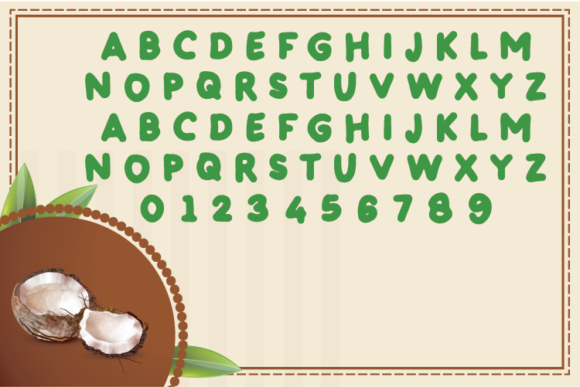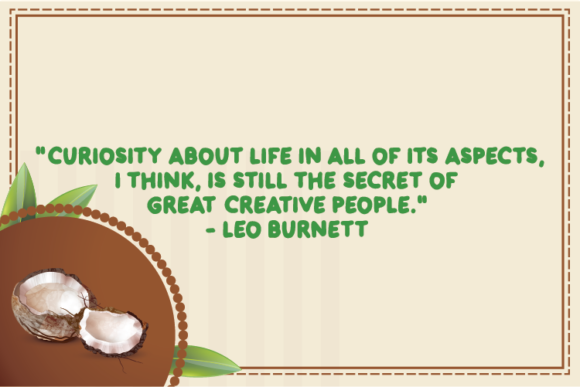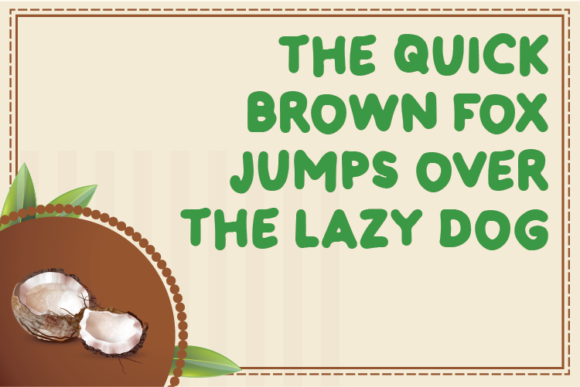
Coconute Font: The Friendly and Playful Display Font for All Occasions
Are you tired of using the same old fonts for your designs and crafts? Look no further than Coconute Font, a childish and easy-to-read display font that’s perfect for conveying friendliness and approachability. In this article, we’ll explore the features and benefits of Coconute Font, and why it’s about to become your new go-to font for all your design needs.
What is Coconute Font?
Coconute Font is a display font designed to be highly legible and friendly. Its playful and childish style makes it perfect for a wide range of applications, from crafts and digital design to presentations and greeting cards. The font’s unique charm and character are sure to capture the attention of your audience and leave a lasting impression.
Key Features of Coconute Font
- Childish and playful style: Coconute Font has a fun and youthful vibe that’s perfect for designs that need to appeal to a younger audience.
- Easily readable: The font’s clear and simple design makes it easy to read, even at small sizes.
- Versatile: Coconute Font can be used for a wide range of applications, from digital design to print materials.
- Friendly and approachable: The font’s warm and inviting style is perfect for conveying friendliness and approachability.
Why Use Coconute Font?
So why should you choose Coconute Font for your next design project? Here are just a few reasons:
- Add a personal touch: Coconute Font’s playful style adds a personal touch to your designs, making them more relatable and engaging.
- Stand out from the crowd: The font’s unique charm and character help your designs stand out from the crowd and grab attention.
- Perfect for kids and adults alike: Coconute Font’s friendly style appeals to both kids and adults, making it perfect for designs that need to appeal to a wide range of audiences.
Use Cases for Coconute Font
Coconute Font is perfect for a wide range of applications, including:
- Crafts: Use Coconute Font to add a personal touch to your handmade crafts, such as greeting cards, gift tags, and scrapbooking.
- Digital design: Coconute Font is perfect for digital designs, such as social media graphics, blog posts, and website headers.
- Presentations: Add a friendly and approachable tone to your presentations with Coconute Font.
- Greeting cards: Use Coconute Font to create fun and playful greeting cards for special occasions.
Tips for Using Coconute Font
Here are a few tips for getting the most out of Coconute Font:
- Experiment with colors: Coconute Font looks great in a wide range of colors, so don’t be afraid to experiment and find the perfect hue for your design.
- Pair with other fonts: Coconute Font pairs well with other fonts, so try combining it with a serif or sans-serif font for added visual interest.
- Use it sparingly: While Coconute Font is perfect for headings and titles, it can be overwhelming if used too much. Use it sparingly to add emphasis and create visual hierarchy.
Coconute Font is a friendly and playful display font that’s perfect for designers and crafters looking to add a personal touch to their work. With its childish and easy-to-read style, Coconute Font is sure to become your new go-to font for all your design needs. Whether you’re creating crafts, digital designs, presentations, or greeting cards, Coconute Font has the potential to become your favorite font, no matter the occasion!